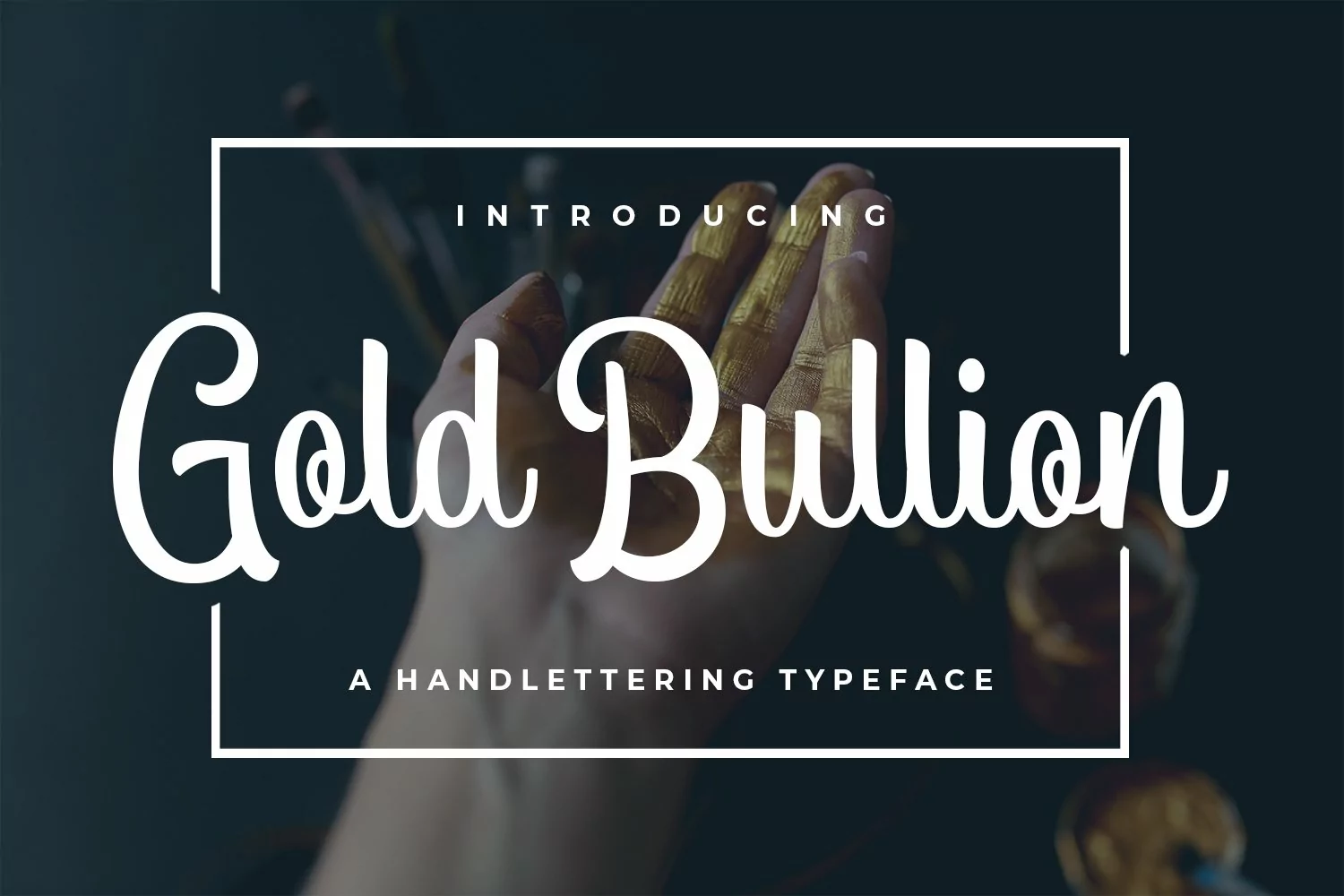
Gold Bullion is a thick script font which is easy to read, therefore it works fantastically for many craft projects. Beautiful thick strokes mean that Gold Bullion has a bold look and will add style and panache for your projects and designs. Great for logos, invitations, cards, tshirts, mugs, signs, and more!